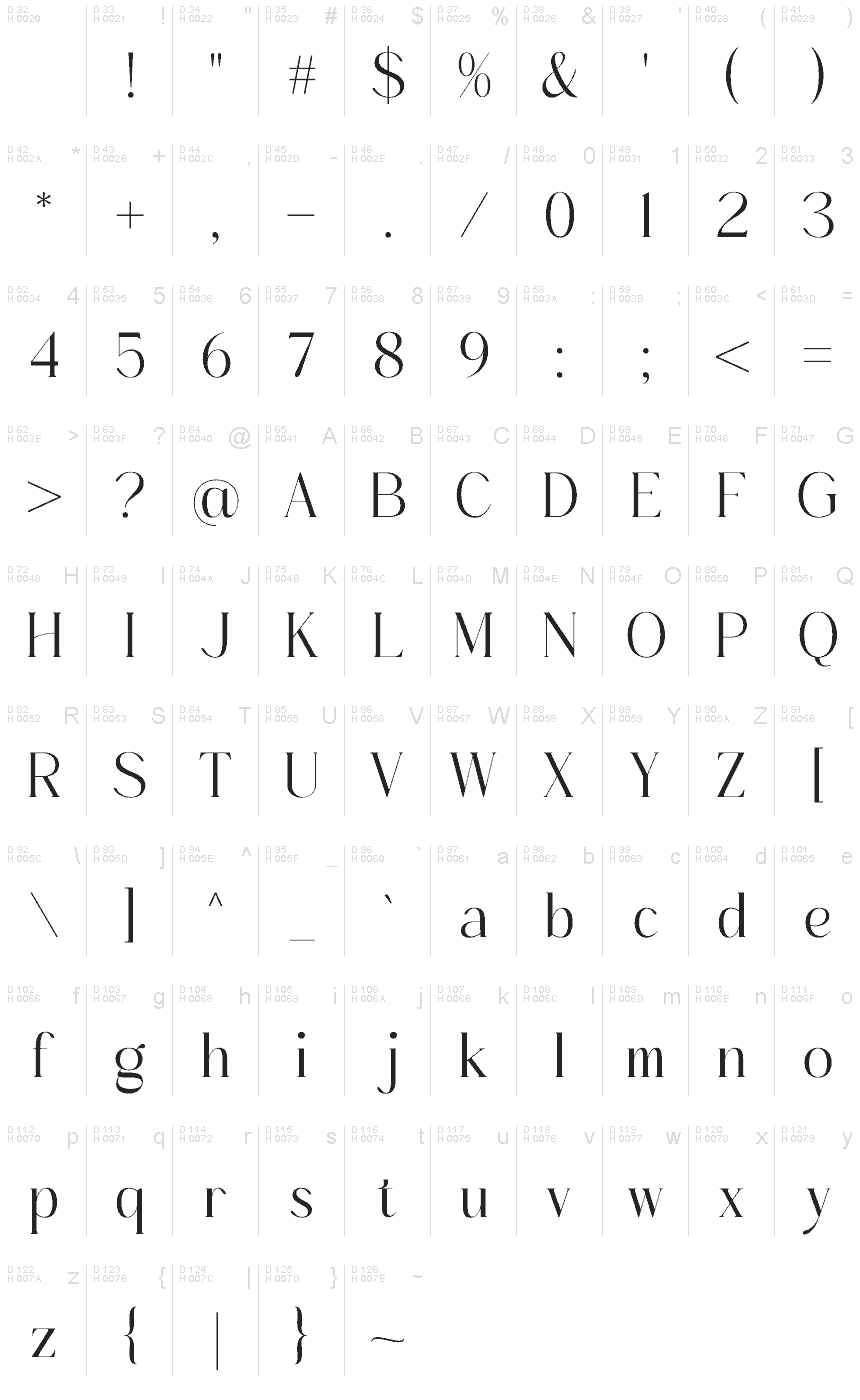
Holmesh
Holmesh font by Storytype Studio is a neat serif font meant to take your work to the next level. Integrate it into your new projects for designs that are elegant and sophisticated. The lines are refined, classic, and traditional at first glance with classic serif elements quietly presented between the thin text.
Use this free sophisticated typeface in magazines, newspapers, logos and labels, stationery design products, interiors and home items branding, postcards and posters. It can also be engraved on metals or advertised with vintage promotional campaigns on billboards or over the web for even more interesting results!